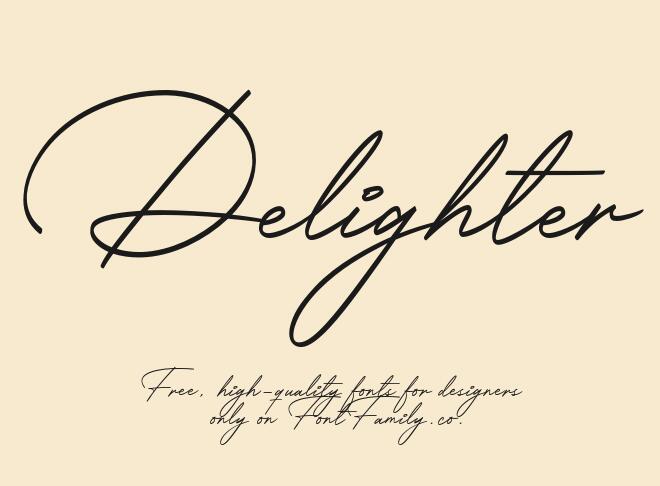
Delighter Font
Delighter Font, designed by Creative Tacos, is a playful yet elegant handwritten script typeface that exudes charm and sophistication. Released in 2019, it blends the casual appeal of handwritten fonts with the precision of script fonts. Its versatile style makes it perfect for a wide range of design projects, from branding and logos to social media posts and wedding invitations. Compared to other fonts, Delighter stands out for its unique personality and readability, making it a great choice for designers looking to add a touch of individuality to their work. Despite its intricate design, it remains easy to read, thus striking a perfect balance between style and functionality. With a license that offers free personal use, Delighter Font is a must-have in every designer's toolkit.